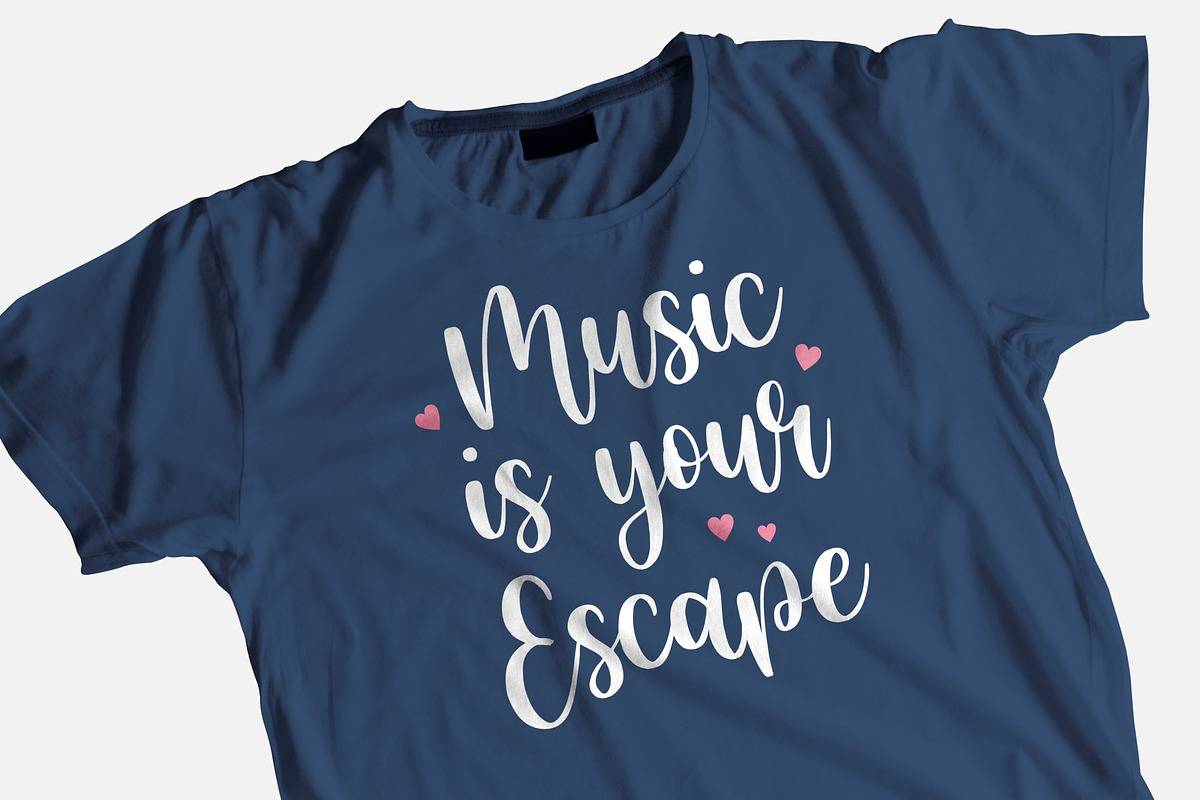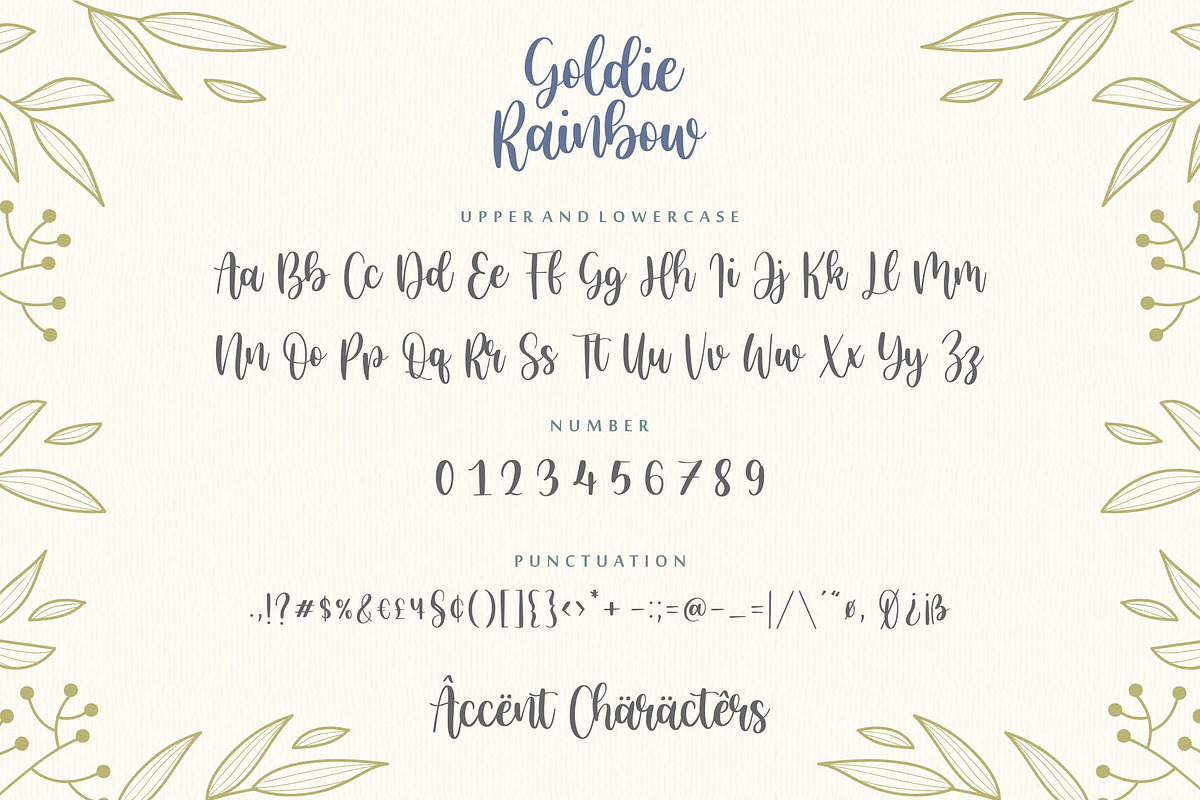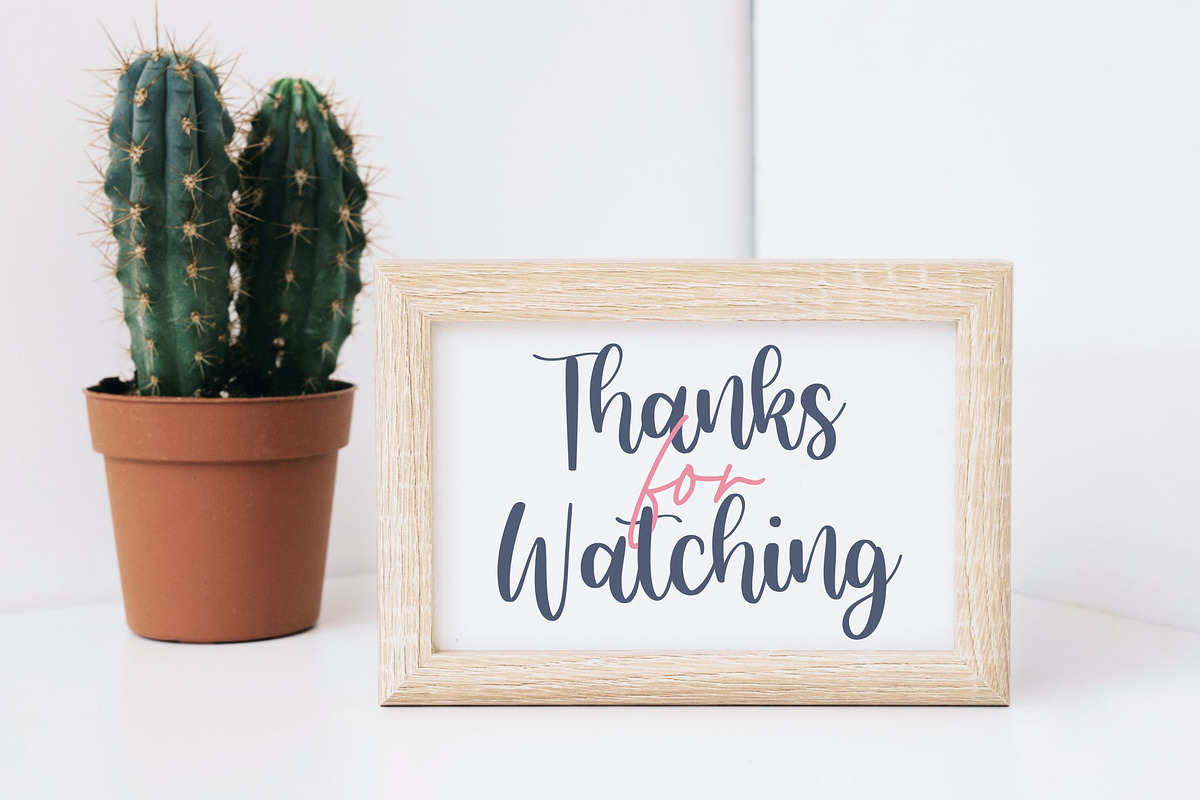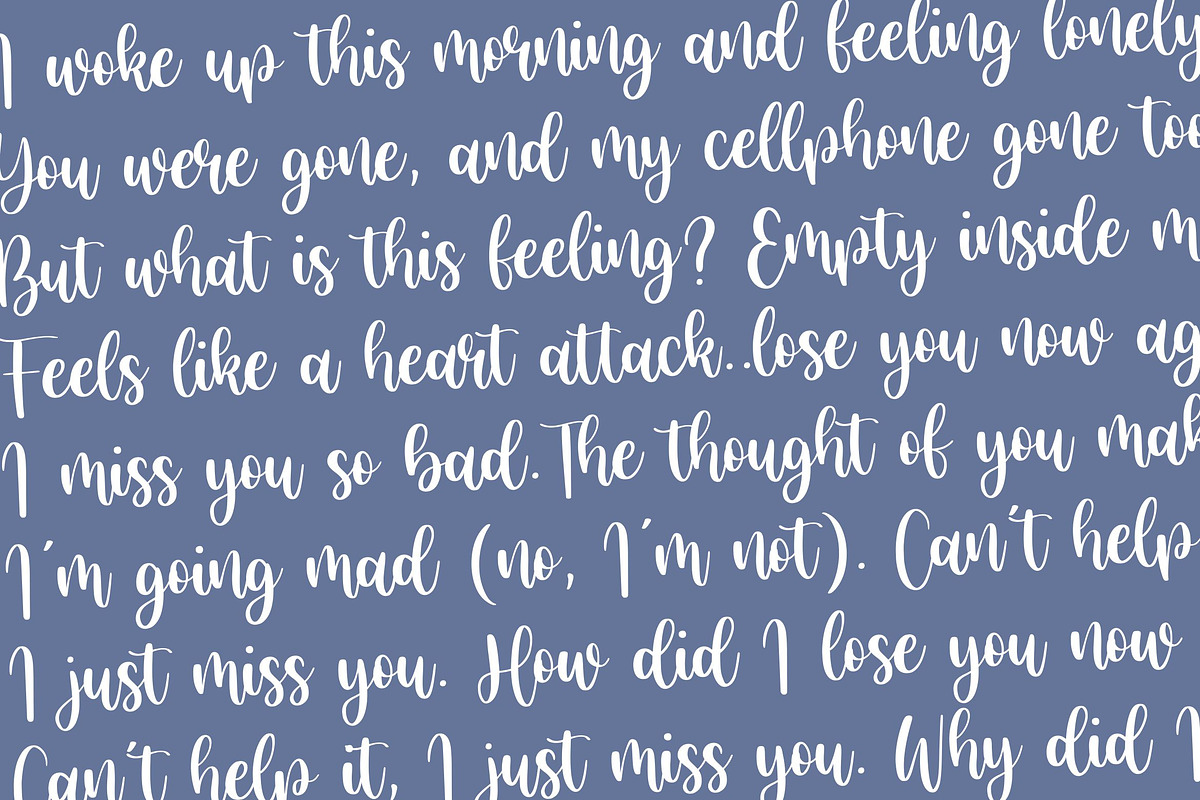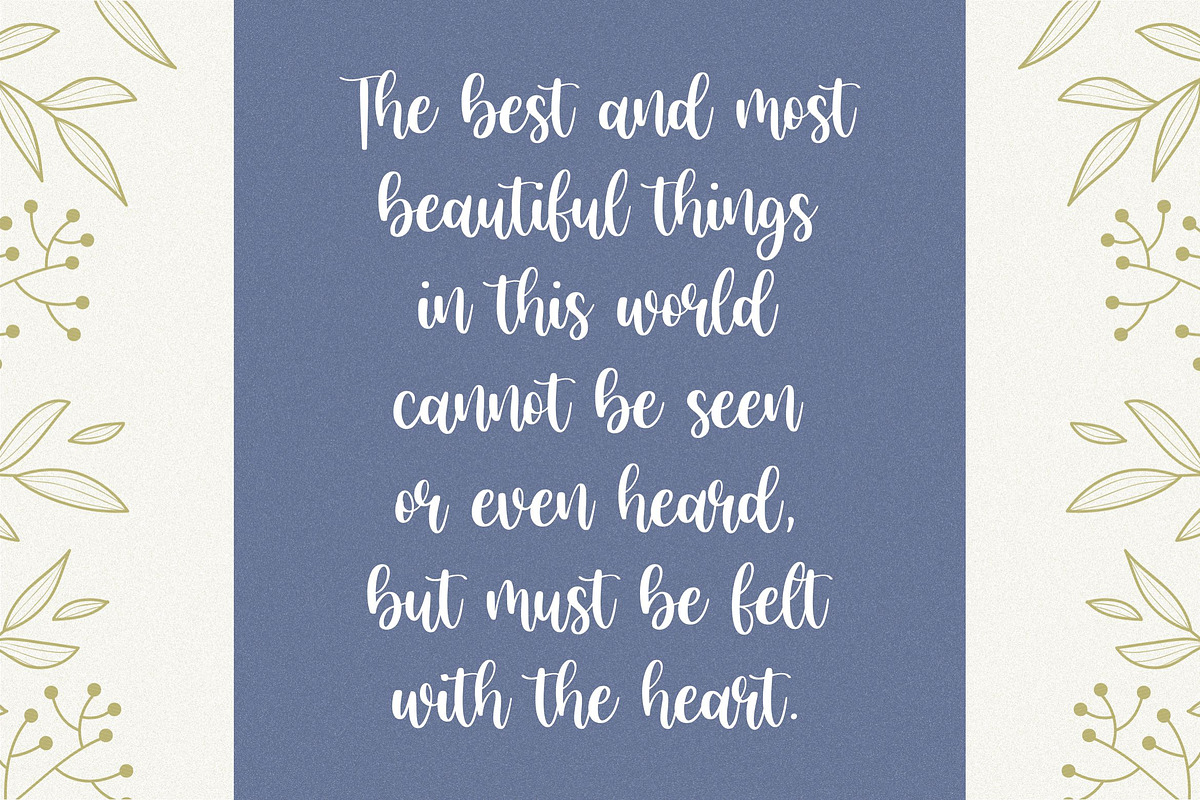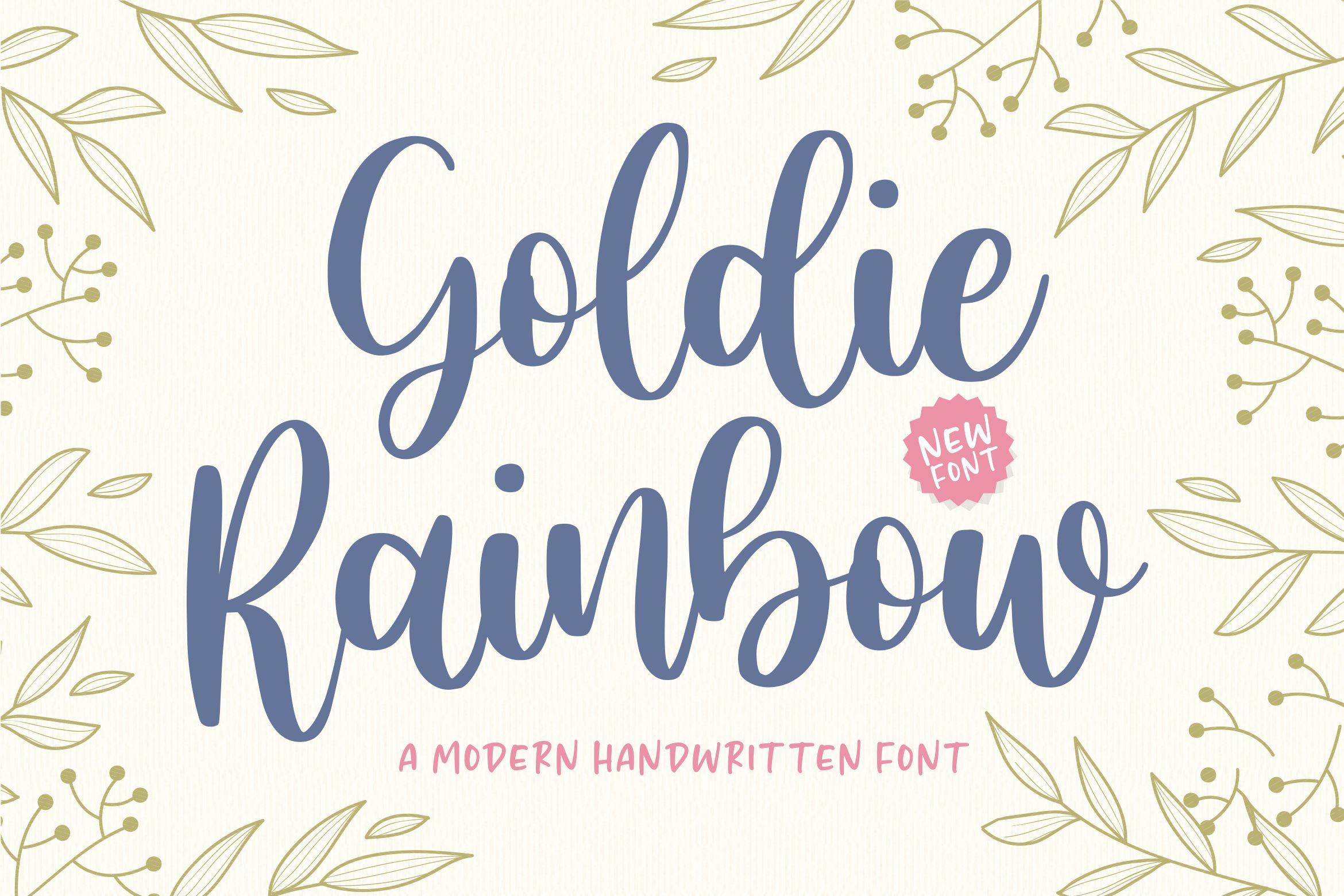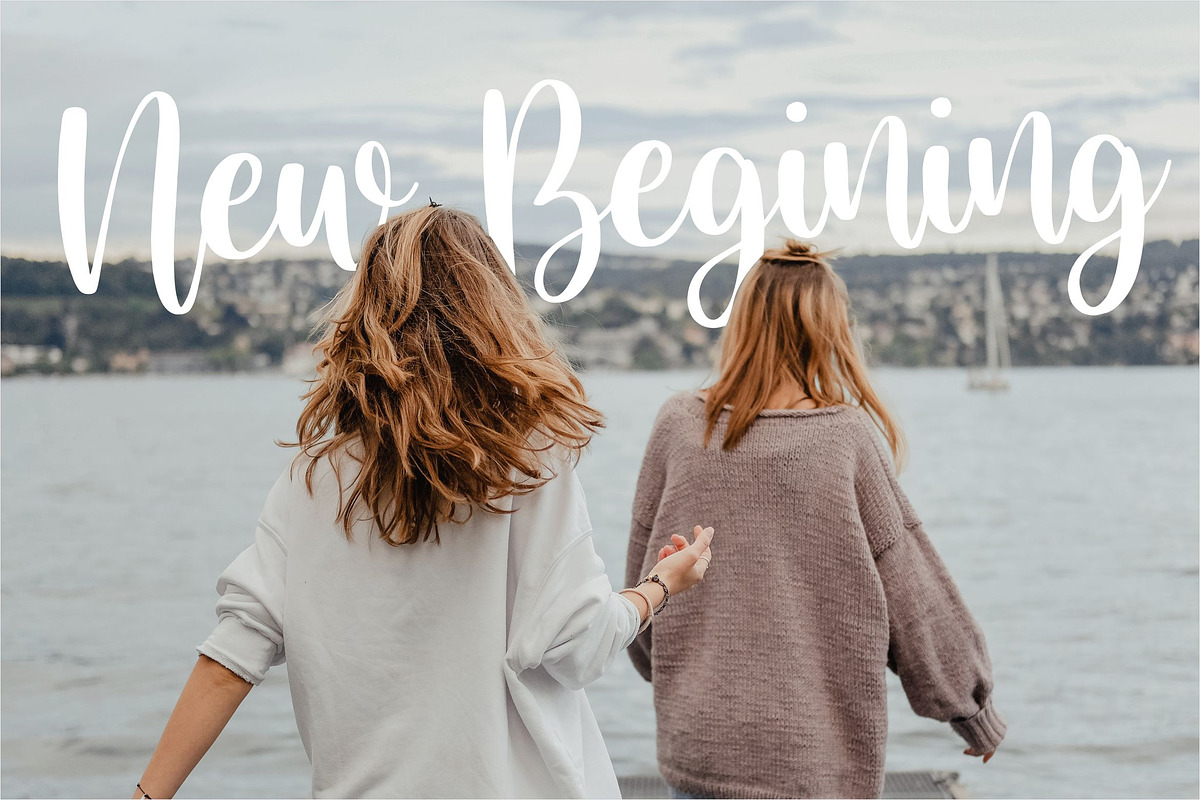
Goldie Rainbow - Handwritten Font
Proudly Present, Goldie Rainbow Font
Goldie Rainbow is a flowing and lovely handwritten font, created with the help of a beautiful brush pen. Fall in love with its incredibly versatile style and use it to create gorgeous wedding invitations, beautiful stationary art, eye-catching social media posts, and much more!